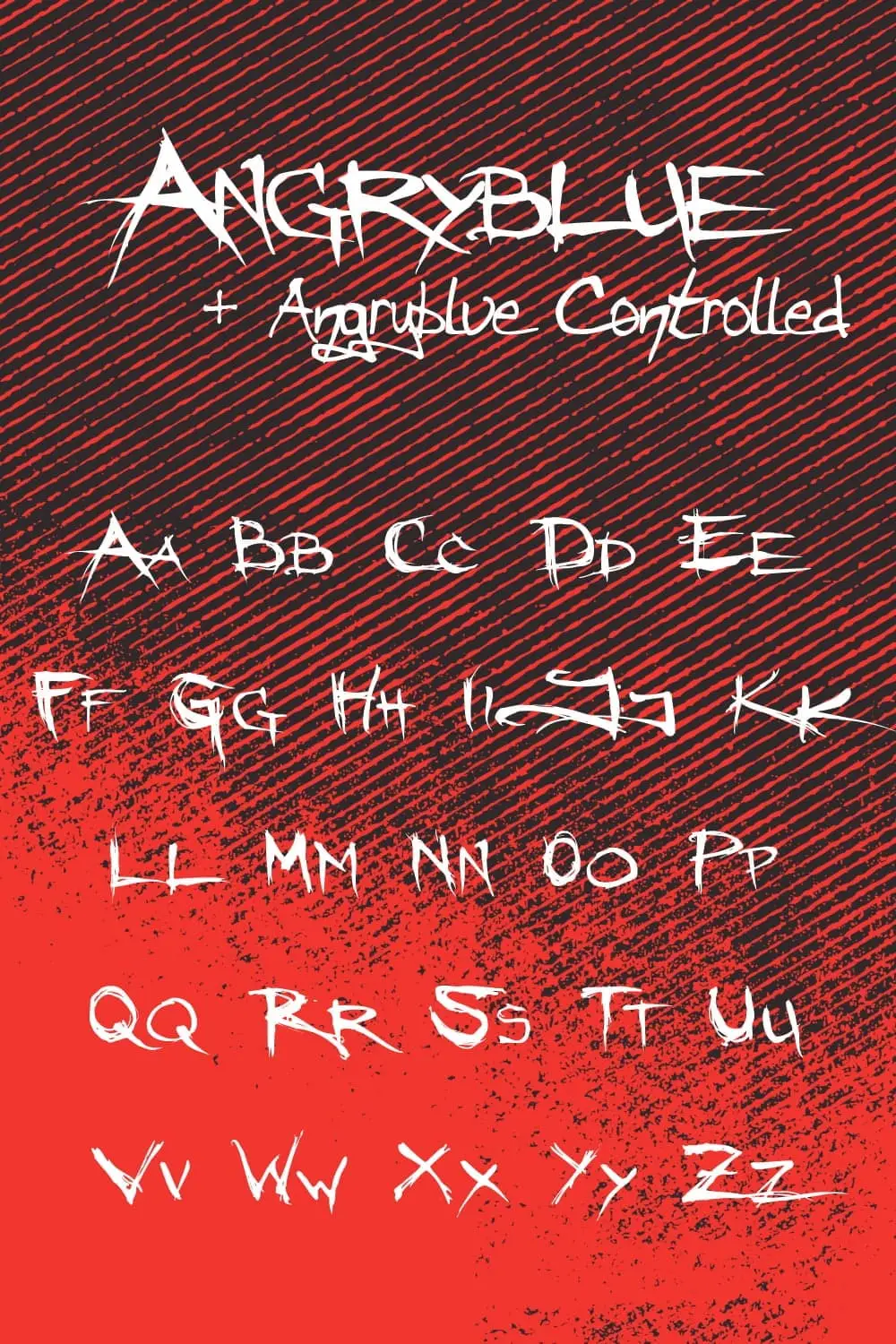
The Angry Display Font is a bold and expressive typeface designed to capture attention in any design project. With its unique character shapes and striking presence, this font is perfect for creating impactful headlines, logos, and branding materials.
- Distinctive display style
- Uppercase letters and numerals
- Easy to read at various sizes
- Character set includes uppercase letters, numbers, and basic punctuation
- Ideal for posters, flyers, and social media graphics
- Great for branding projects that require a bold statement
- Use in web design for eye-catching headings